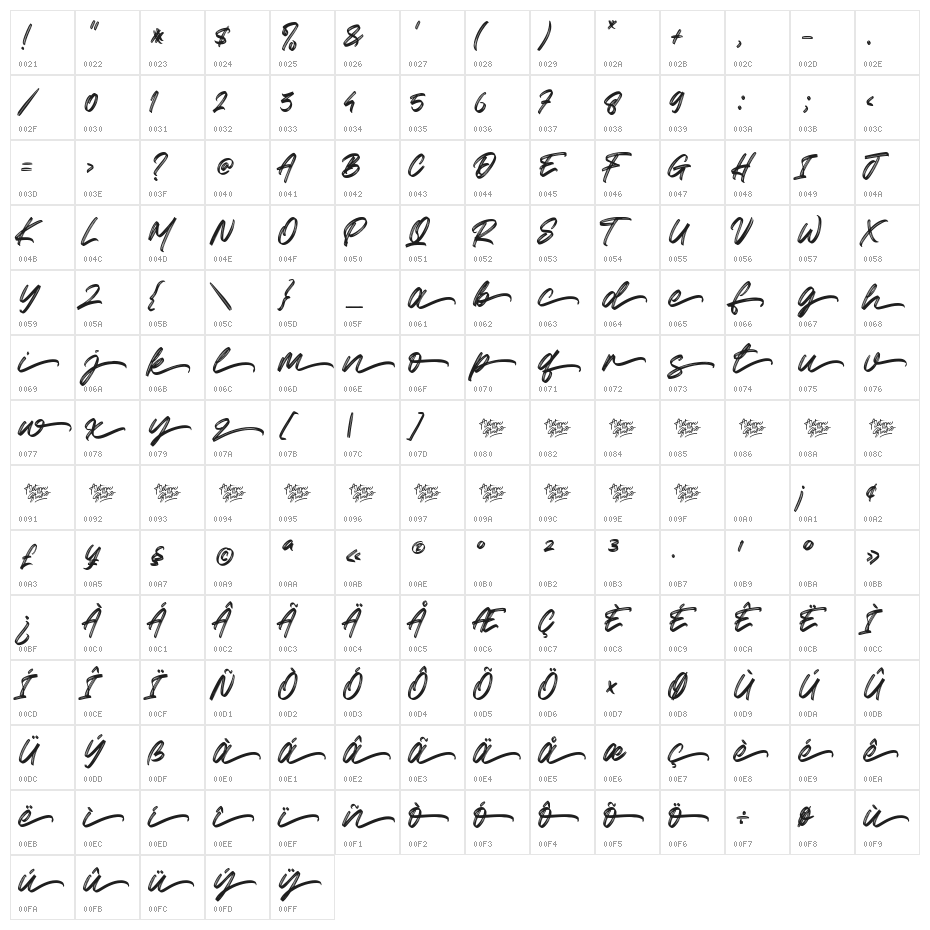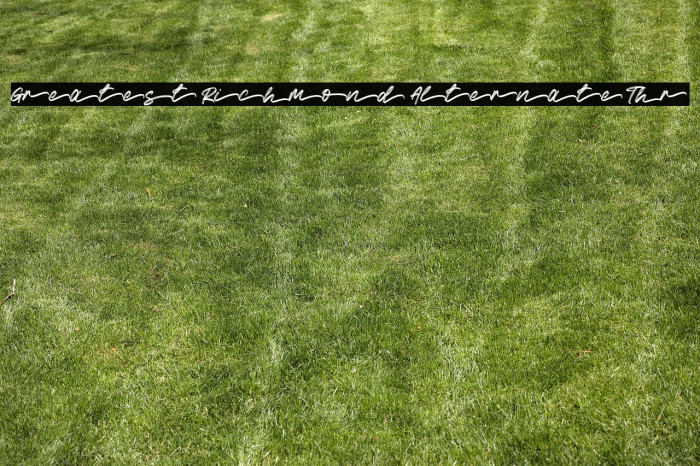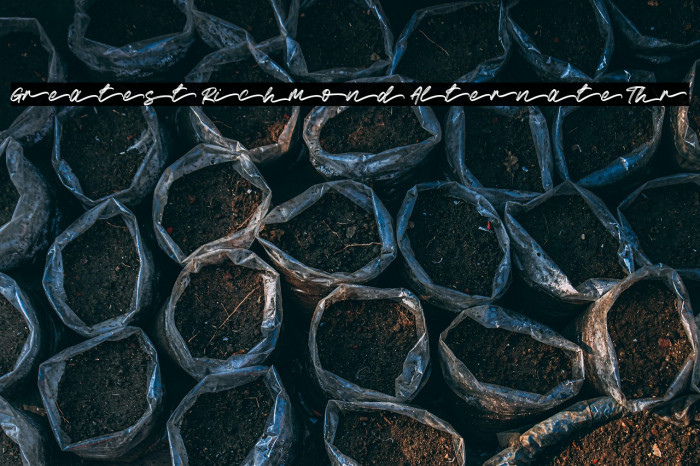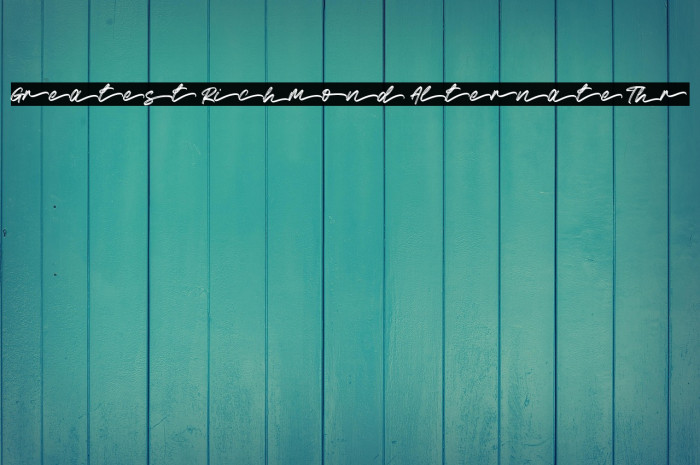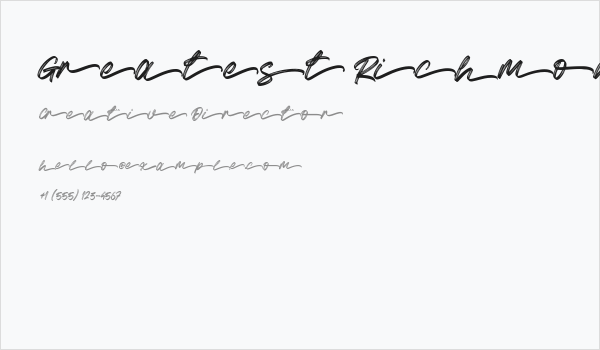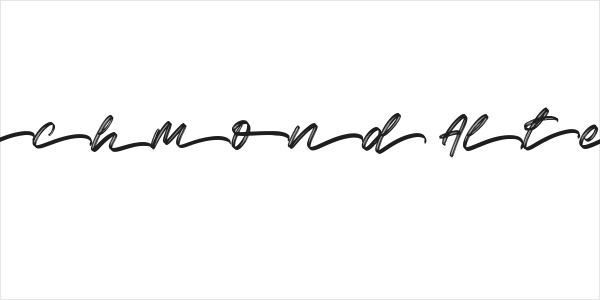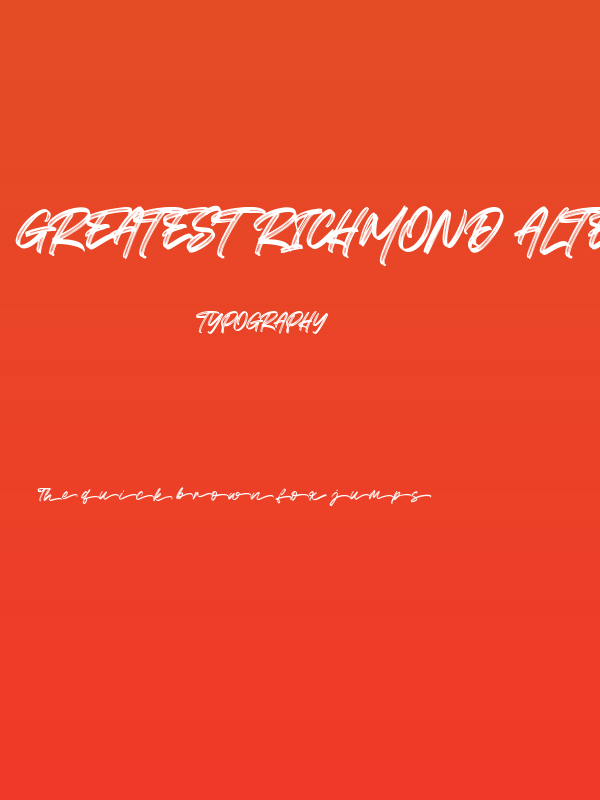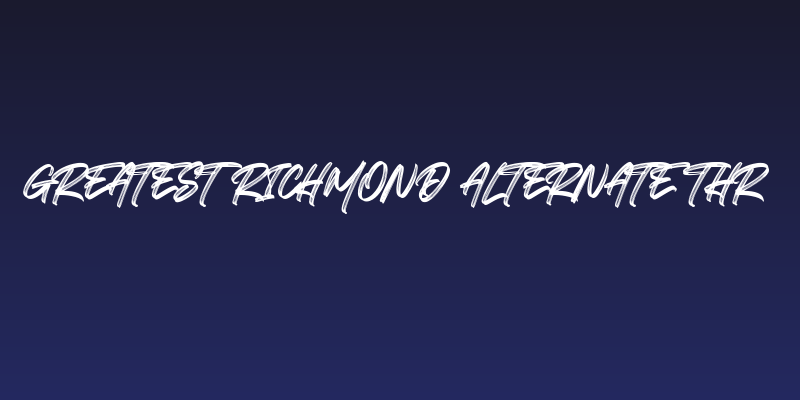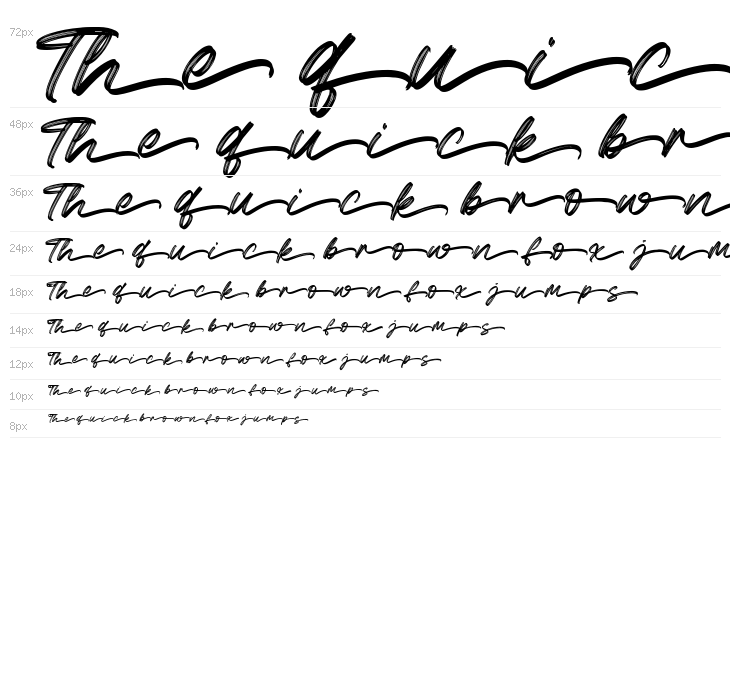
Greatest Richmond Alternate Thr Font
Greatest Richmond Alternate Thr Description
This font exhibits a dynamic and energetic style, characterized by its bold, brush-like strokes that convey a sense of movement and flair. The uppercase letters are particularly striking, with their thick, sweeping lines and slightly irregular forms, giving them a hand-painted appearance. The lowercase letters, while more restrained, maintain a fluidity and elegance, with subtle connections between characters that enhance readability. The numerals and special characters follow the same expressive style, ensuring consistency across all text elements. This font's unique aesthetic makes it ideal for projects that require a personal touch or a bold statement.
| Proposed Projects | Ideal for branding, posters, album covers, and any design needing a bold, artistic touch. |